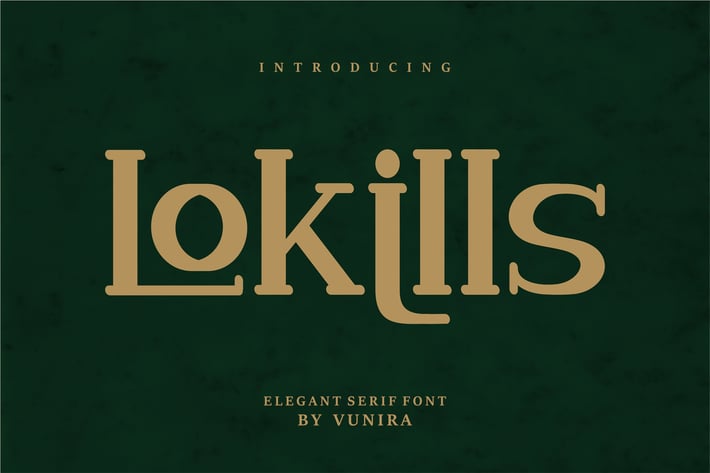
Lokills | Elegant Serif Font
Lokills | Elegant Serif Font with a calligraphy style, So beautiful on invitation like greeting cards, branding materials, business cards, quotes, posters, and more!